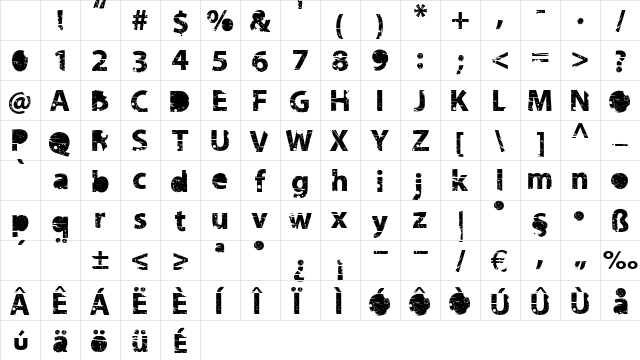
Complete tramyad Semi-expanded Bold glyph index. Displaying only characters natively supported by tramyad Semi-expanded Bold font.
tramyad is a composed and adaptable typeface that performs quietly and consistently across a wide range of design contexts. Its bold stroke weight gives it real presence on the page.